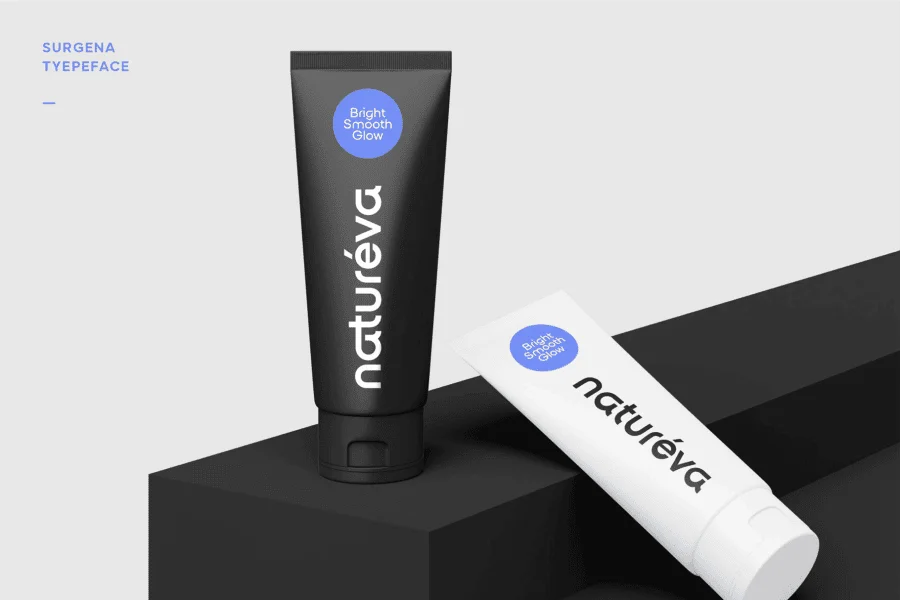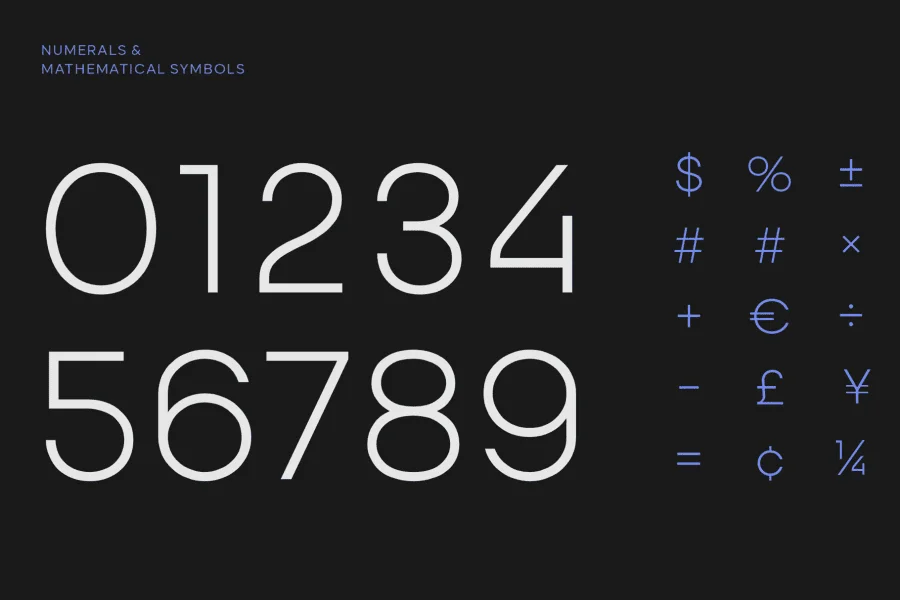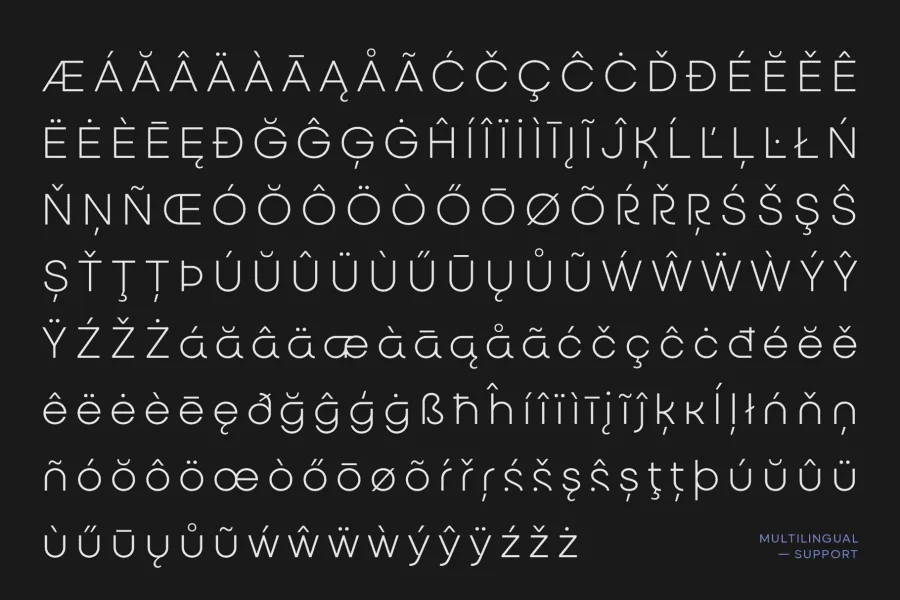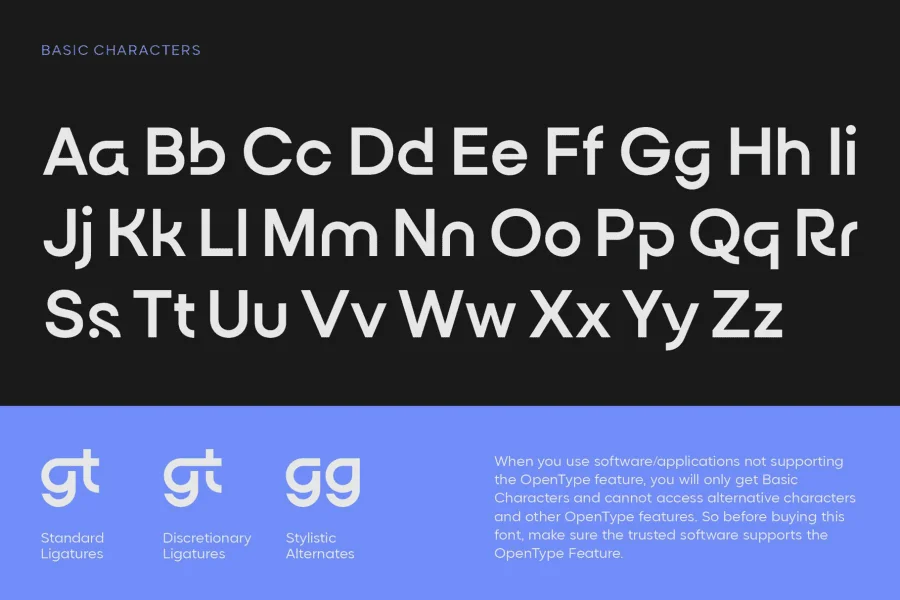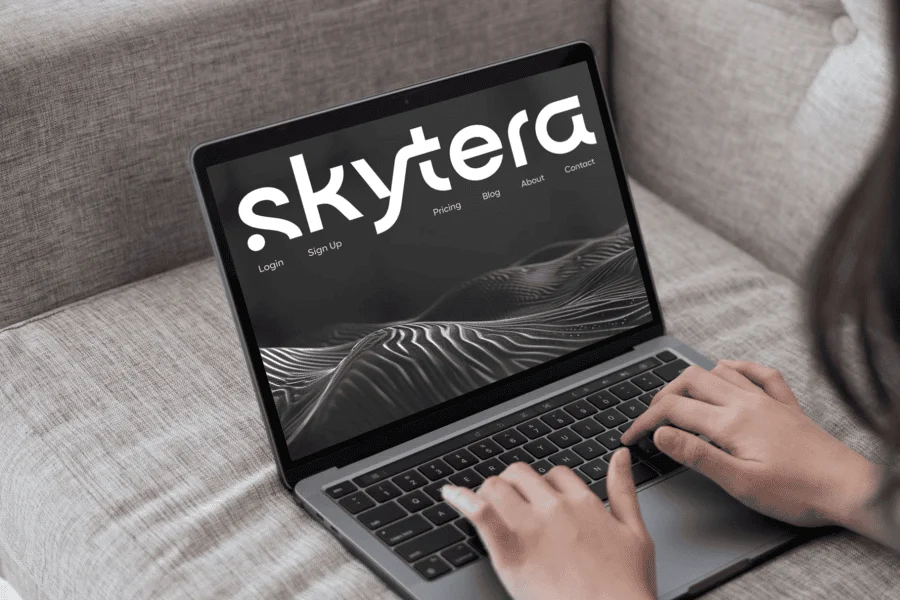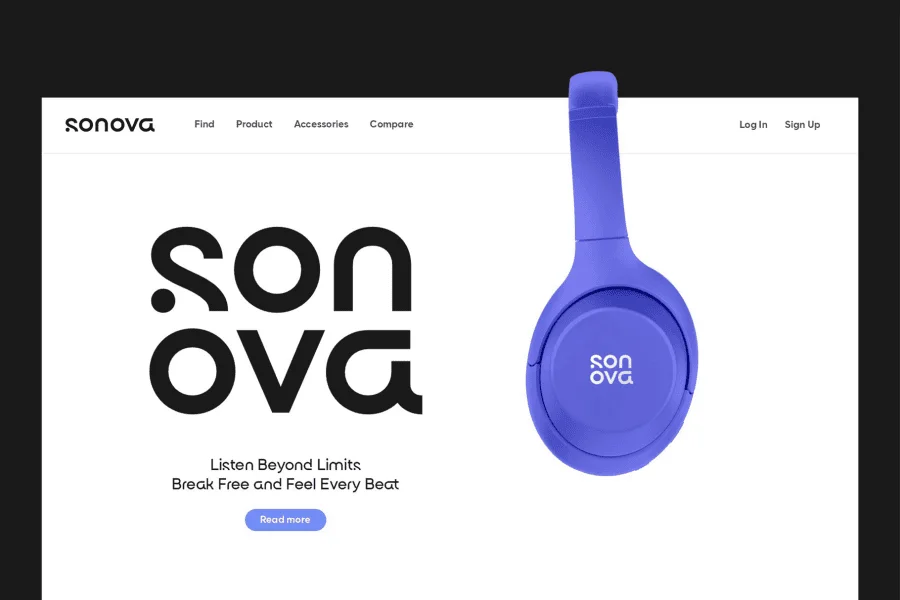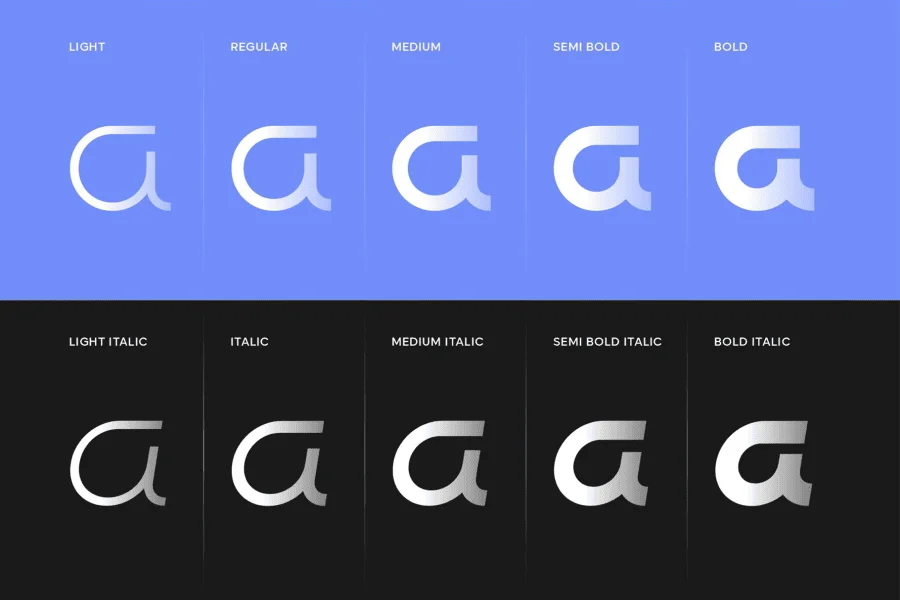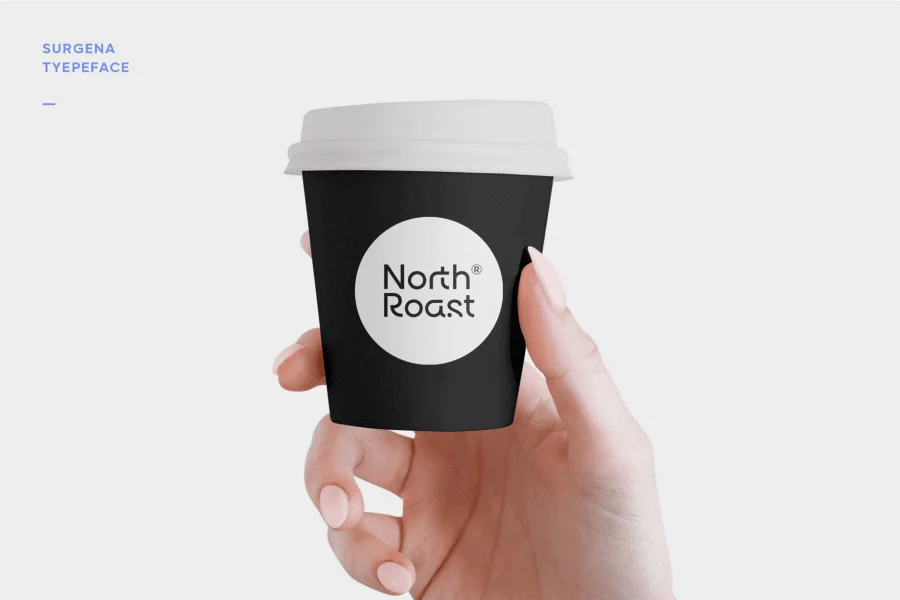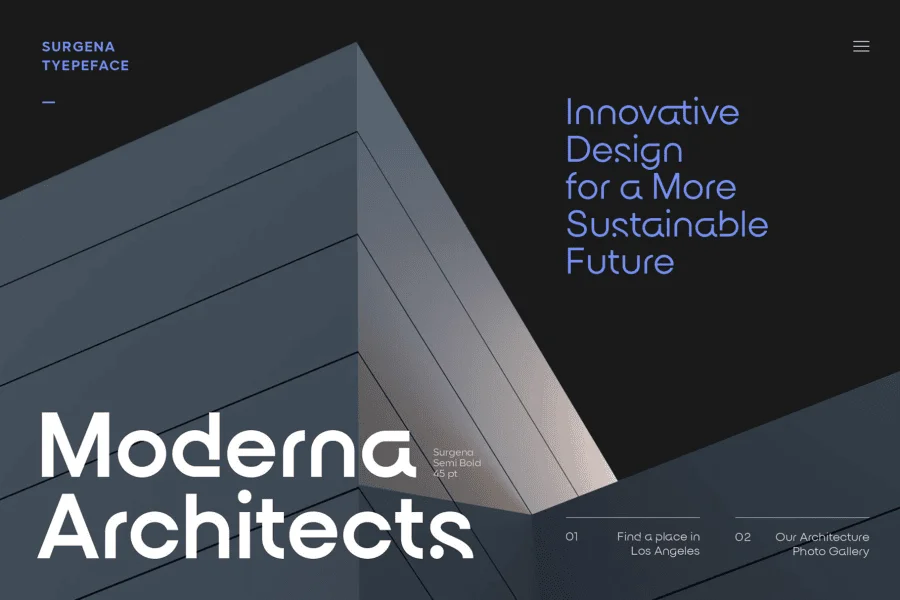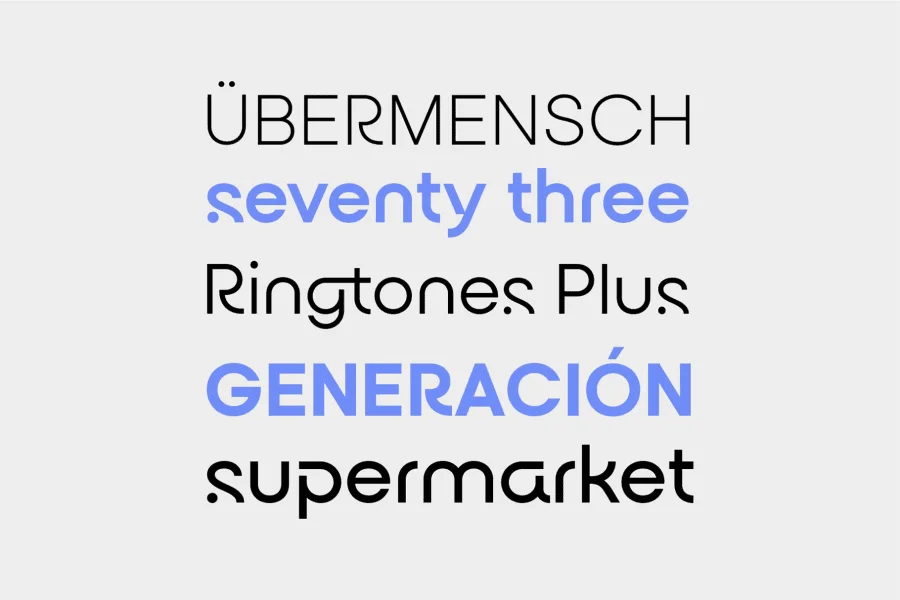
Surgena is a modern sans-serif font combining minimalist elegance and clean, precise geometric shapes. With balanced proportions and refined details, it conveys a professional, innovative, and dynamic feel, making it perfect for branding, editorial, and digital design.